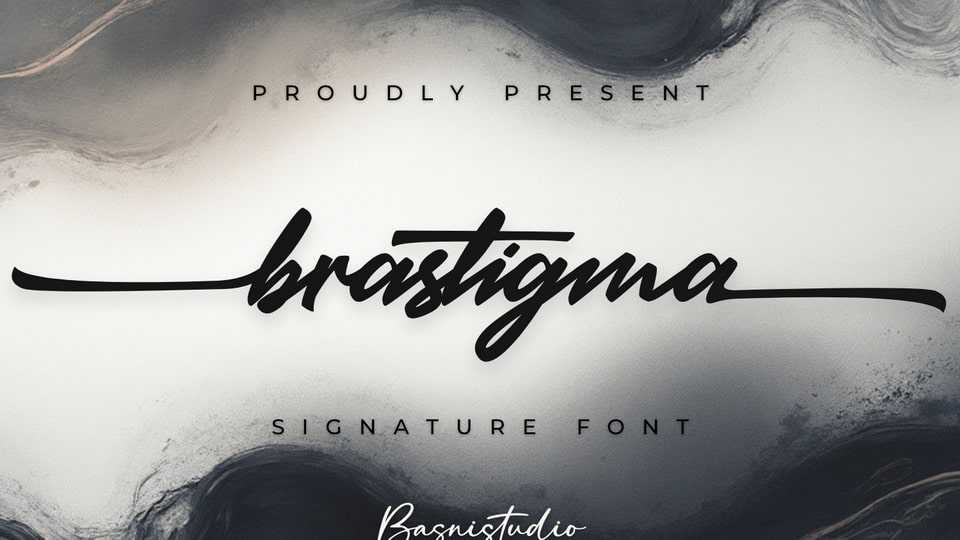
Download Brastigma font, a signature typeface that adds ah elegant, versatile touch to everything from branding and social media to invitations and packaging.